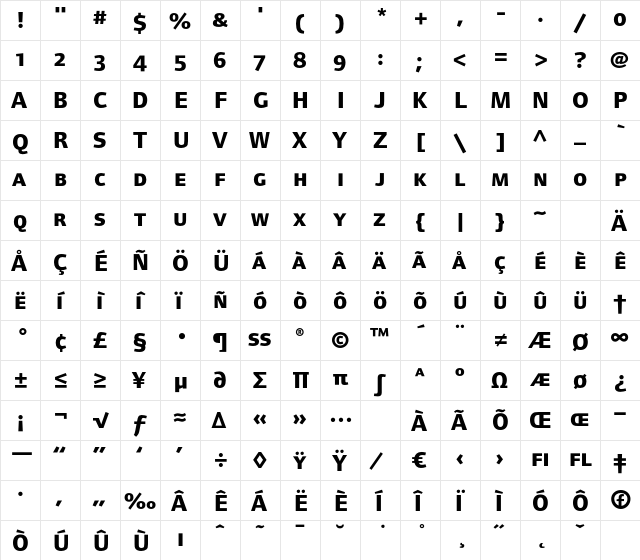
FoundryFormSans ExtraBoldSC Font Preview
FoundryFormSans ExtraBoldSC
Design Context for FoundryFormSans Typeface
FoundryFormSans offers clean, dependable letterforms without strong stylistic allegiance, making it a practical choice for designers who need flexibility. The heavy weight commands attention and anchors typographic hierarchies.